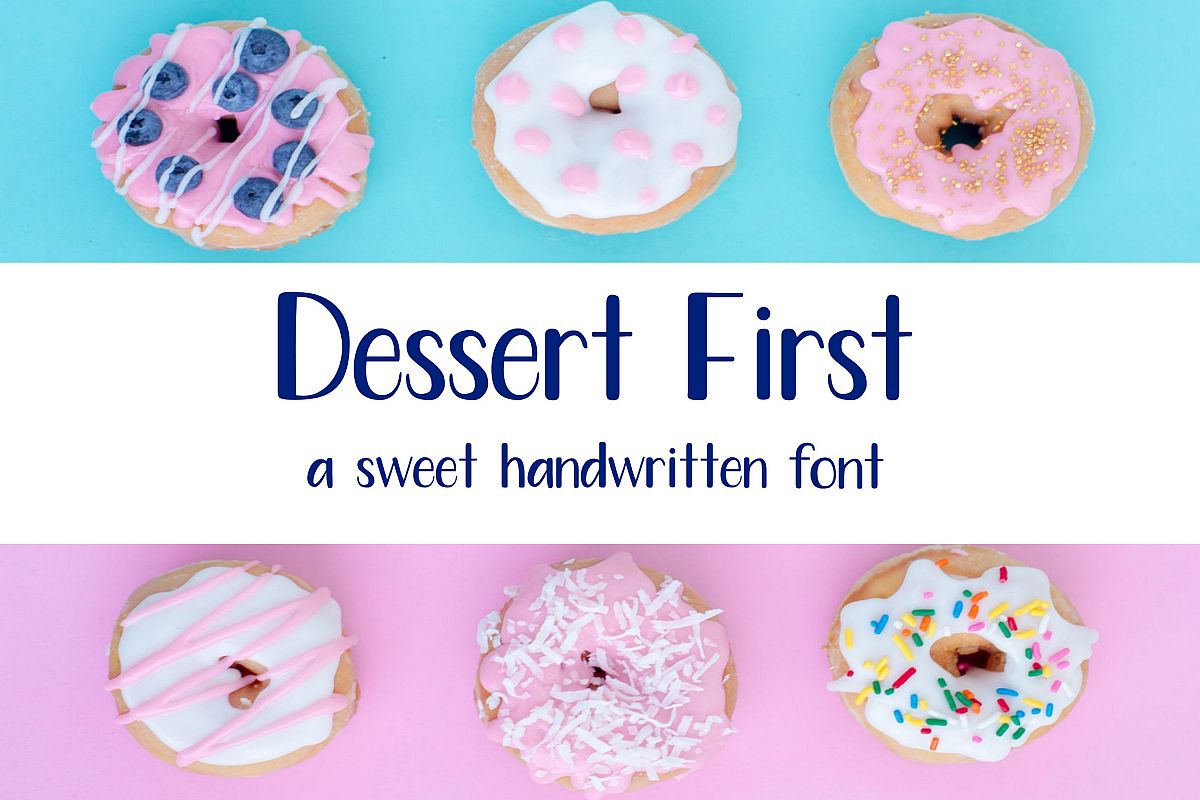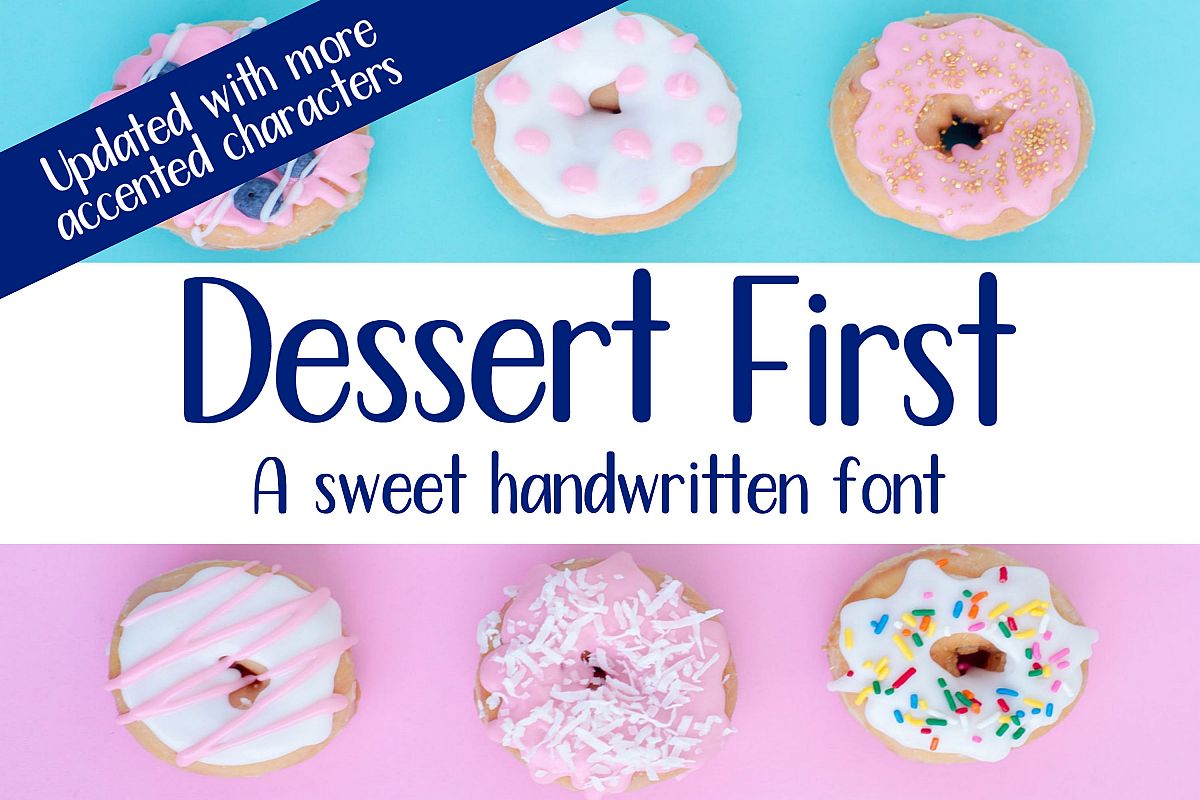
Dessert First is a handwritten font made up of capital letters A-Z, lowercase letters a-z, numbers 0-9, punctuation, and accented characters. Dessert First is great for cards,